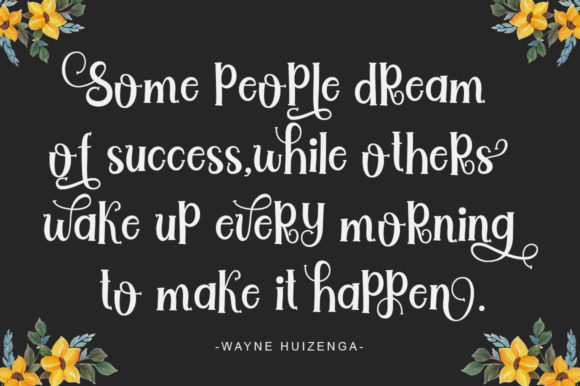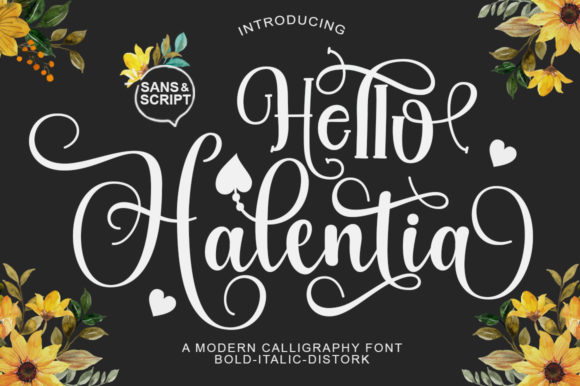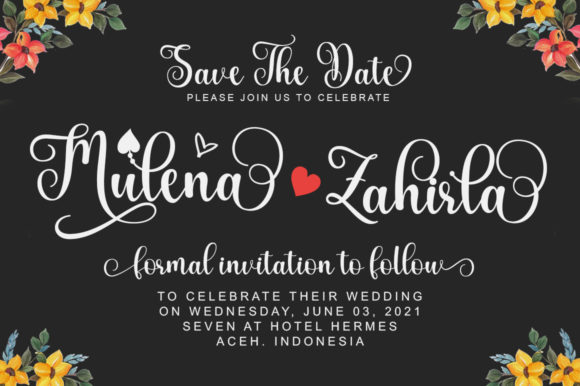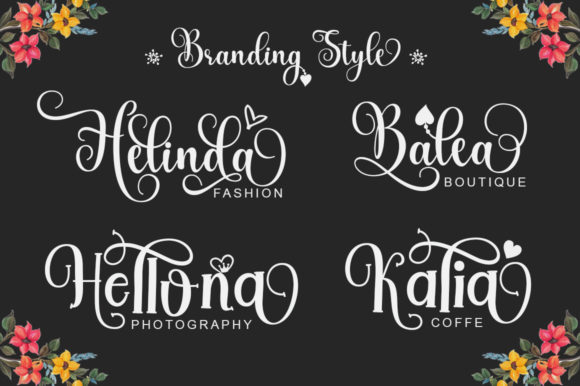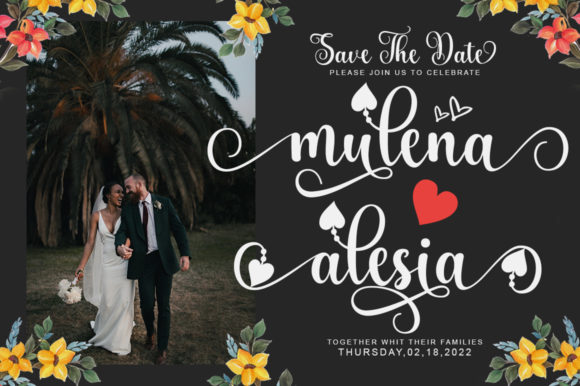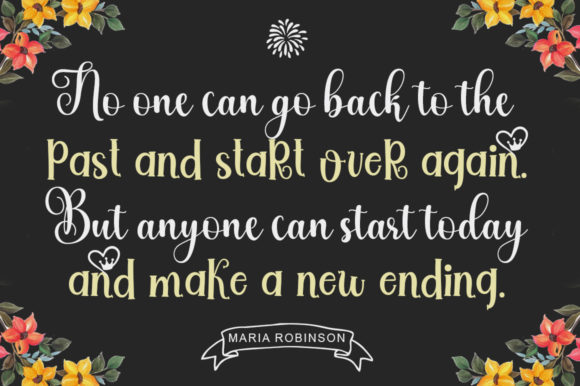
Introduction to Hello Halentia Font
Hello Halentia is a beautiful and graceful trio font (sans serif, dingbats and script).
This font is PUA encoded which means you can access all the glyphs and sweeps easily Fall in love with its ravishing style and use it to create beautiful designs.
Key Features of Hello Halentia Font
Hello Halentia Font offers exceptional quality and versatility, making it a valuable addition to your design toolkit. Whether you’re creating for personal projects or commercial use, Hello Halentia Font delivers professional results.